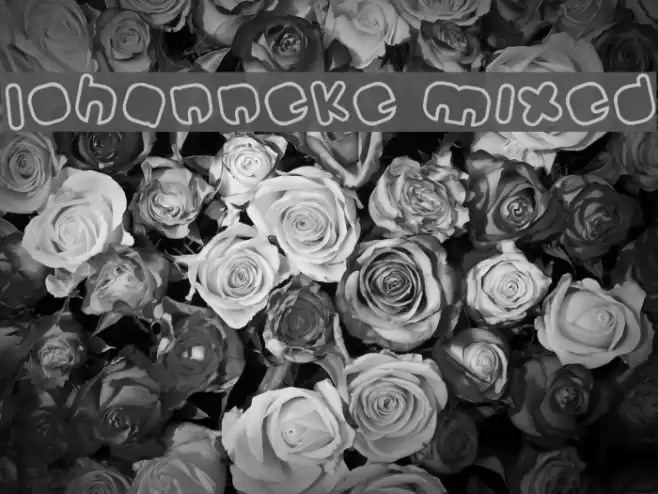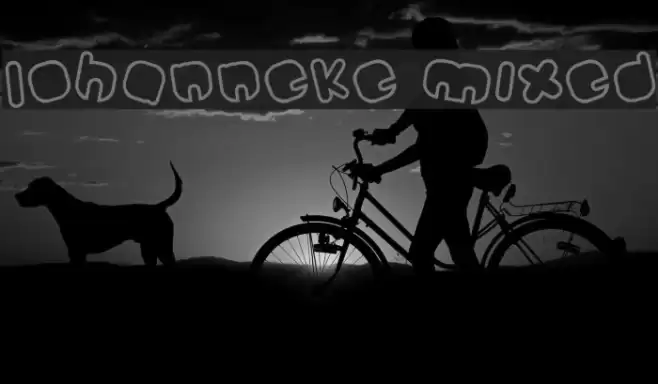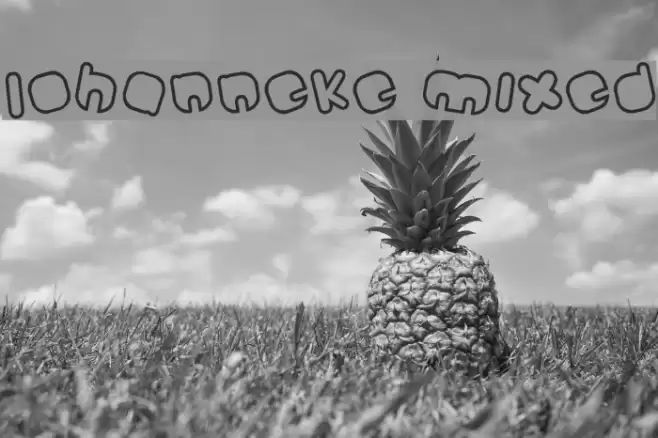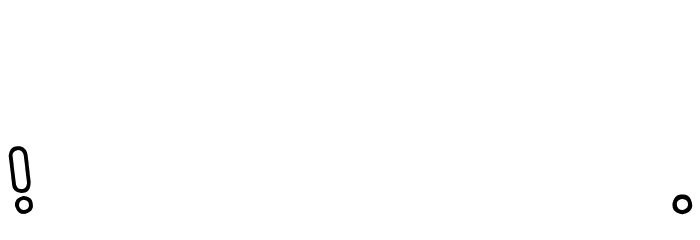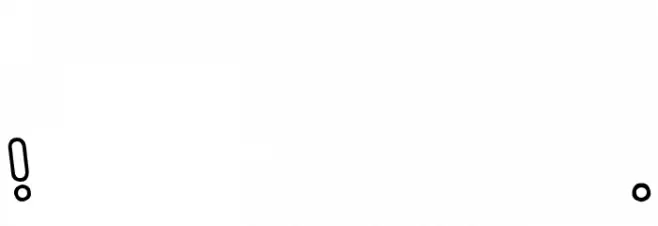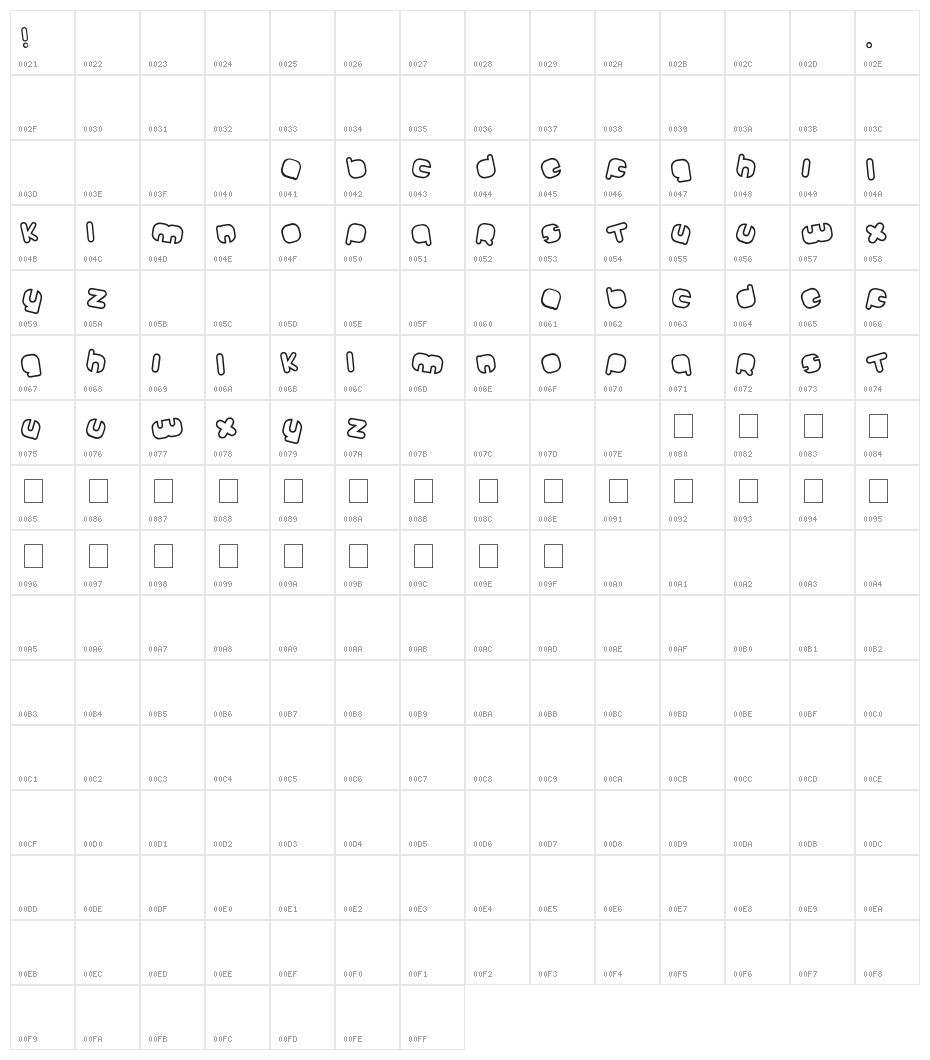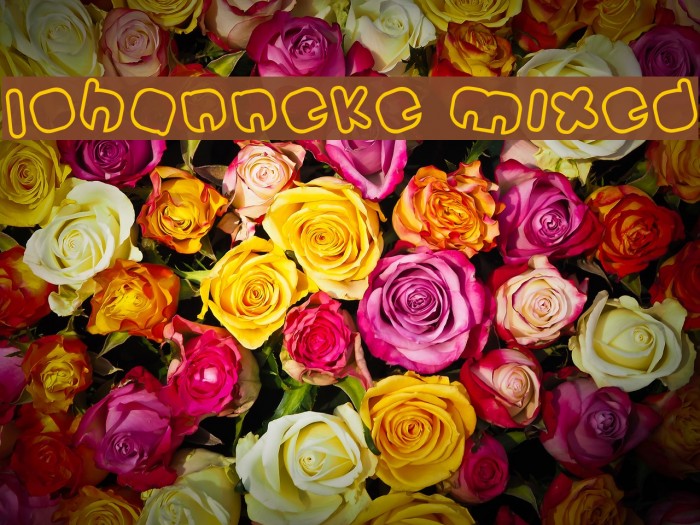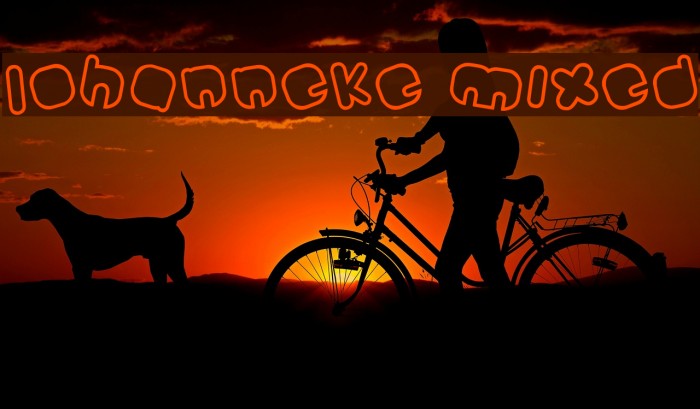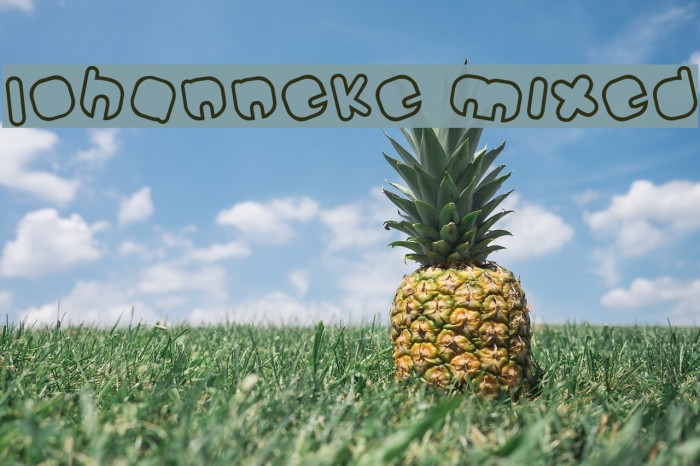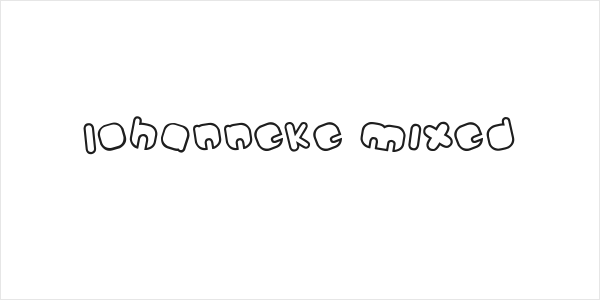
Johanneke Mixed Font
Johanneke Mixed Description
This playful and whimsical font features bold, rounded letters with a hand-drawn appearance. Each character is outlined, giving it a bubble-like effect that adds a sense of fun and creativity. The font maintains a consistent thickness throughout, with a slightly irregular shape that enhances its casual and informal style. It is particularly suited for projects that require a lighthearted and youthful touch. The spacing between characters is relatively tight, which helps maintain a cohesive look across text. This font is ideal for children's books, playful branding, or any design that aims to convey a sense of joy and imagination.
A playful, hand-drawn font with bold, rounded outlines and a whimsical style from Uncategorized fonts.
- Proposed Projects: Children's books, playful branding, party invitations, creative posters.
- Character Spacing: Tight
- Overall Style: Playful, Whimsical